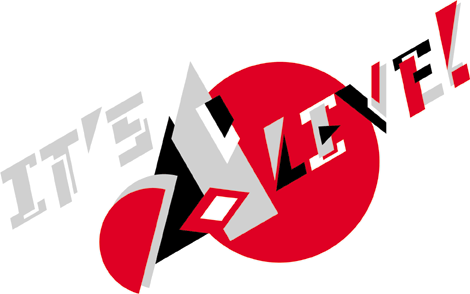
dot-font: "It's [Still] Alive!"
Contributing editor John D. Berry previews the upcoming Type Directors Club conference, which will focus on the future of type on screens, be they silver, CRT, or LCD.
"The art of typography has leapt off the page and onto the screen. Since we're going to be reading off screens more and more in the future, we might as well use all our skills to make the experience rewarding, creative, and sustainable."
So begins the Type Directors Club introductory text for its upcoming conference on type on screen -- "It's Alive!" -- which I mentioned in my last column. The subject of type on screen is a huge one, running the gamut from movie title sequences to the text type in electronic books. Because in today's postmodern, digitized, post-20th-century, media-saturated environment, screens are everywhere -- and so is type.
The logo for the Type Directors Club's April conference about type on screen.
Feeling the Curse
In the present world (at least in its technologically advanced portions), we look at screens all the time. Not just the ubiquitous television, but the computer monitor on our desk, the silver screen when we go to a movie theater, the glowing LCD of our laptop, the display of a game player, of a personal digital assistant, of a cell phone, of a digital watch. Every one of them has letters on it.
Most of us communicate quite a bit through e-mail -- and that, by definition, is something the great majority of us view on screen. (I have a friend, a talented and idiosyncratic writer, who lives in a fishing shack by the side of a trout stream and writes astounding fiction. He refuses to have even a telephone, much less a computer, and he writes out his stories longhand, in student composition notebooks. "If you can't write me a real letter," he says, "why don't you just write me some e-mail, then print it out and put a stamp on it." He's one person who doesn't read his mail on a screen.)
I've already written about the insane limitations imposed on e-mail by the fantasy of "plain text" -- text that's somehow free of typography. The broken, brain-dead typography we see on the screen in our e-mail programs is a curse we live with every day. And sadly the same sort of typography characterizes much of the other content one finds on screen.
The Magic Potion
This problem needs to be addressed seriously if the next step is going to happen -- or at any rate if that next step isn't going to be a stupendous stumble that sends us falling flat on our high-tech faces. That step is to leave more trees standing and start publishing digitally, on a screen. (No, printed books won't go away; they'll just be supplemented by electronic books and other publications.)
The appeal for publishers is obvious: It's much, much cheaper to publish virtually, without the trouble and expense of printing on paper and distributing the printed result. The appeal to readers is somewhat less obvious, since most of us hate to read from a screen. The challenge for designers working in this medium is immense, but if you can do it -- if you can really design a screen that's comfortable to read -- you'll have the world at your feet.
You Can Take it With You
Digital publishing has taken a lot of forms. The wonderful CD-ROM reproductions of rare classic volumes from Octavo are a specialist's dream; you can page through a First Folio of Shakespeare or Bodoni's Manuale tipografico on your laptop, and all the text is searchable. Leaving CDs behind, the various manufacturers of eBook readers are scrambling to put both current bestsellers and out-of-copyright classics into your hands, and virtually every book publisher is jumping on the bandwagon. "You can have an entire library in your pocket!" they say, and if they can make the reading experience palatable, it will indeed be a wonderful thing.
The big buzz at the moment is how to redirect "content" (you know, the stuff you actually read) to various kinds of electronic media, so that you can look at a Web page, say, with lots of whiz-bang graphics and flashy animation, or view the same basic information in a stripped-down version with your Palm Pilot.
I think the real future is what might be called "streaming info" -- periodicals that you download to your handheld or your augmented cell phone on the fly, so that you can read the latest news, gossip, feature stories, short fiction, opinions, or even cartoons even when riding the subway or holding the strap in a crowded bus.
Who, Where, What, When
The TDC conference will take place at Drexel University in Philadelphia, on Saturday, April 21, 2001. The keynote speaker is science fiction writer Bruce Sterling, who gives great rants and has a way of sparking unexpected ideas about just how we will navigate our hands-on future. He also has a new book on design coming out between now and then. The other speakers include Roger Black on Web-site design, Matthew Carter and Tom Rickner on types for the screen, Brody Neuenschwander on letters in motion, Deborah Ross on the typography of film titles, and Erik Spiekermann on interface design. The day will finish off with a panel on electronic publishing with representatives from Adobe, Microsoft, Simon & Schuster, Linotype, and Agfa Monotype. You can expect a highly visual event, as well as one that is exciting and intellectually challenging.